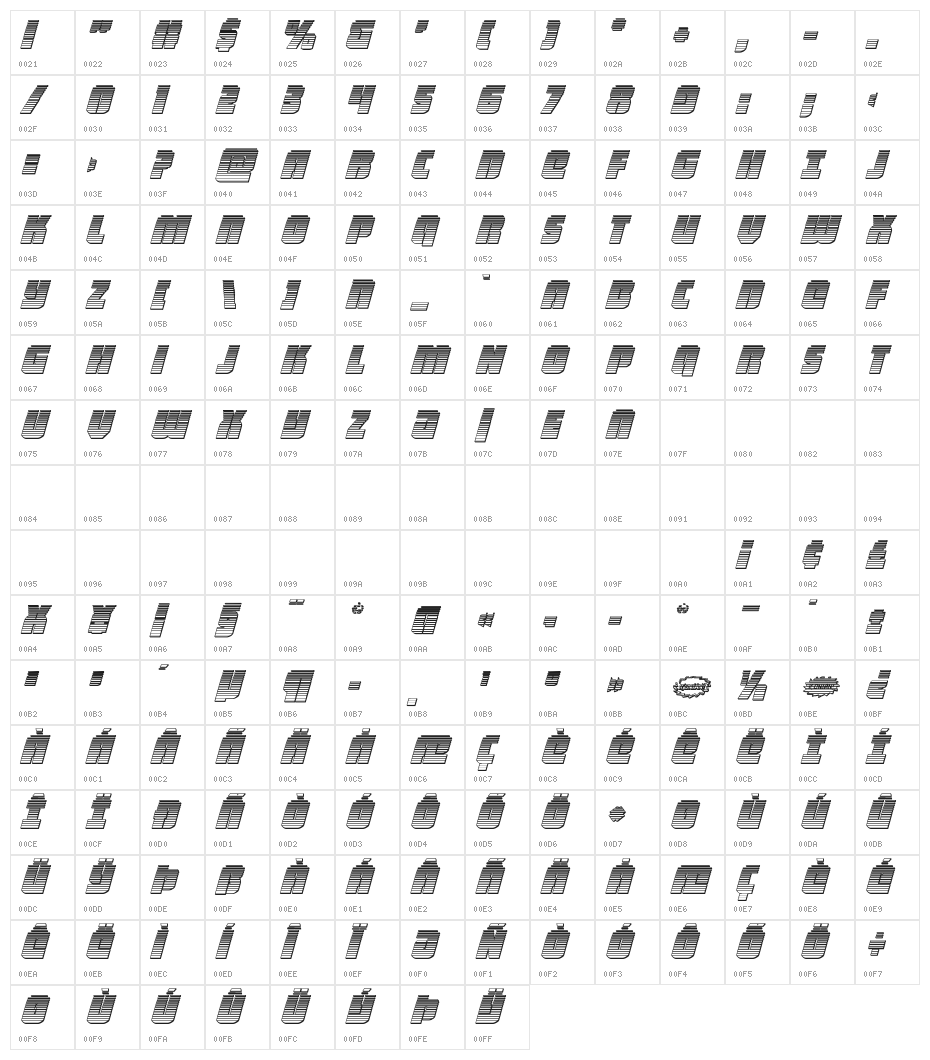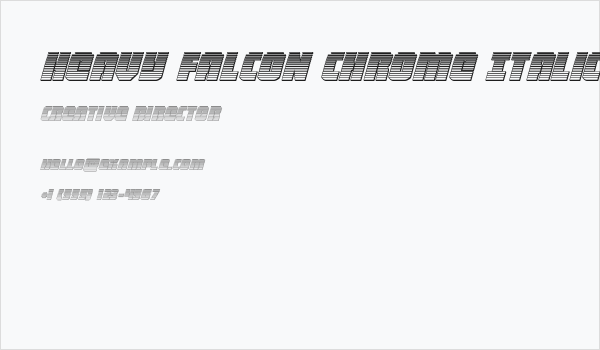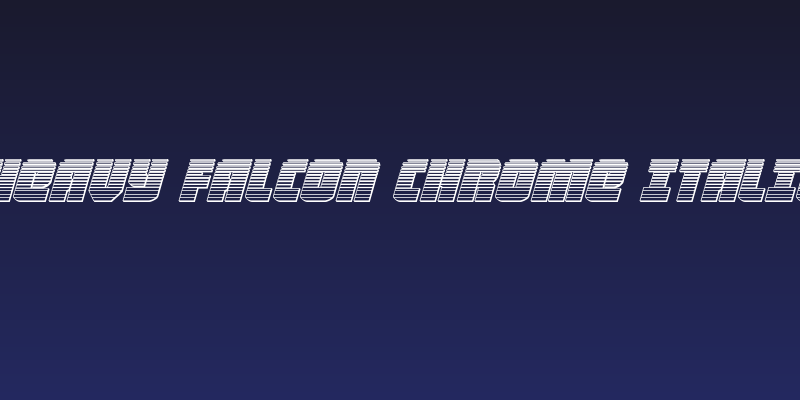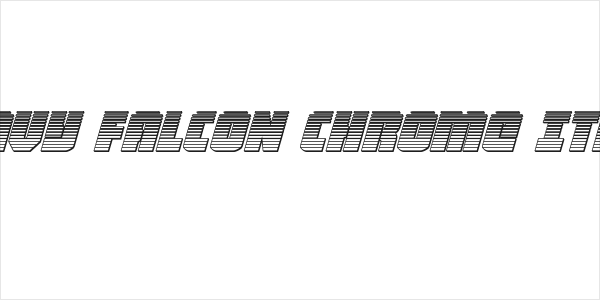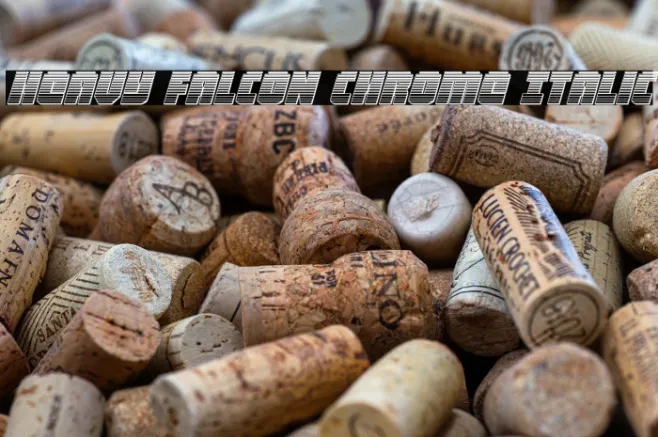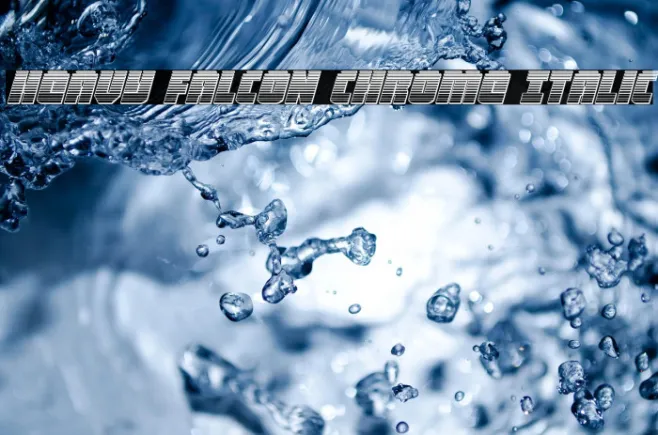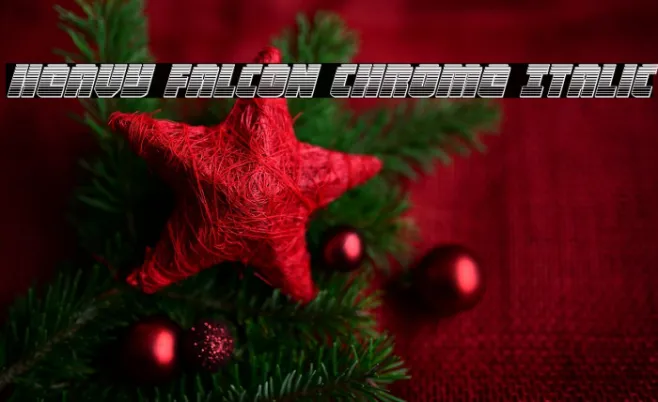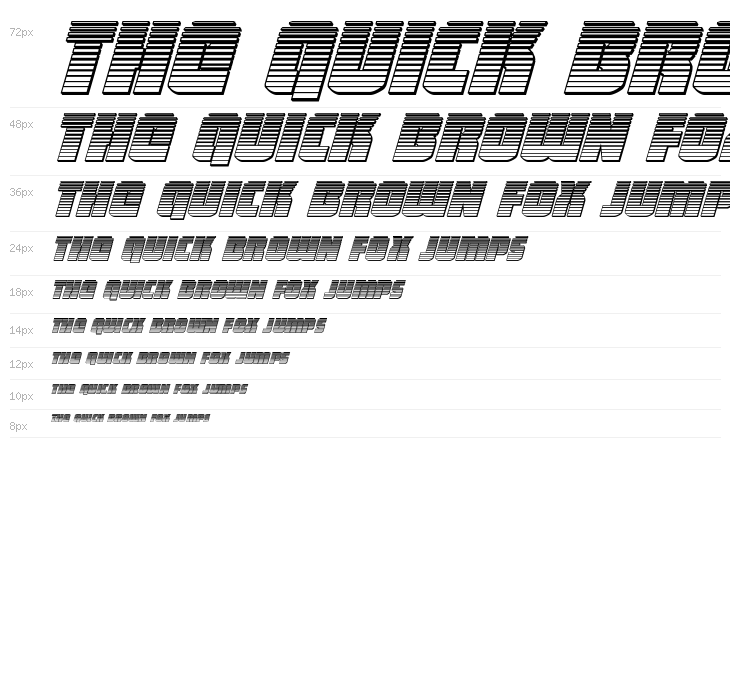
Heavy Falcon Chrome Italic Font
Heavy Falcon Chrome Italic Description
This font features a bold, futuristic design with a distinct chrome-like appearance. The characters are italicized, giving them a dynamic and forward-leaning stance. Each letter is composed of multiple horizontal lines that create a layered effect, reminiscent of a metallic sheen. The overall style is both modern and decorative, making it stand out with its unique visual impact. The font is highly stylized, with a strong emphasis on geometric shapes and sharp angles, providing a sense of speed and motion.
| Overall Style | Futuristic, Decorative |
| Proposed Projects | Ideal for sci-fi themed projects, futuristic branding, video game titles, and tech-related logos. |